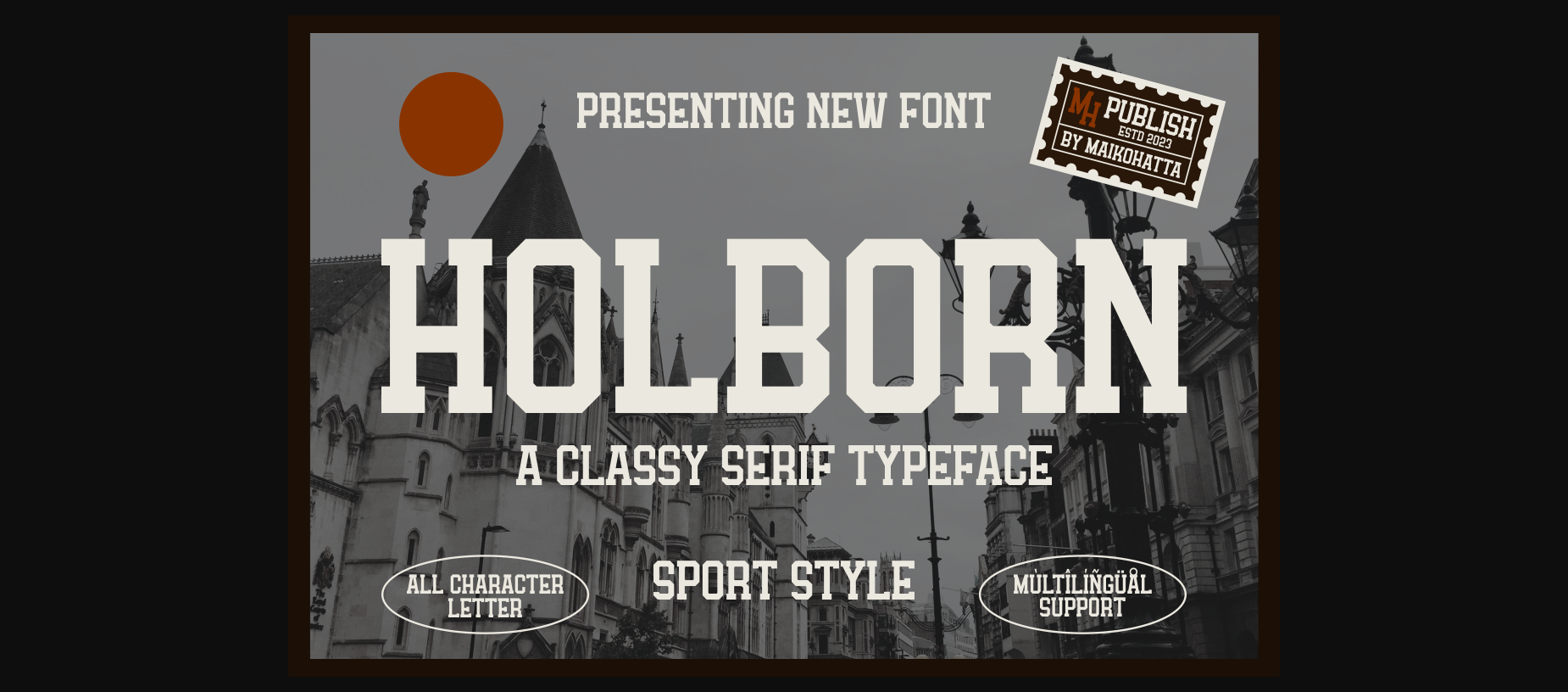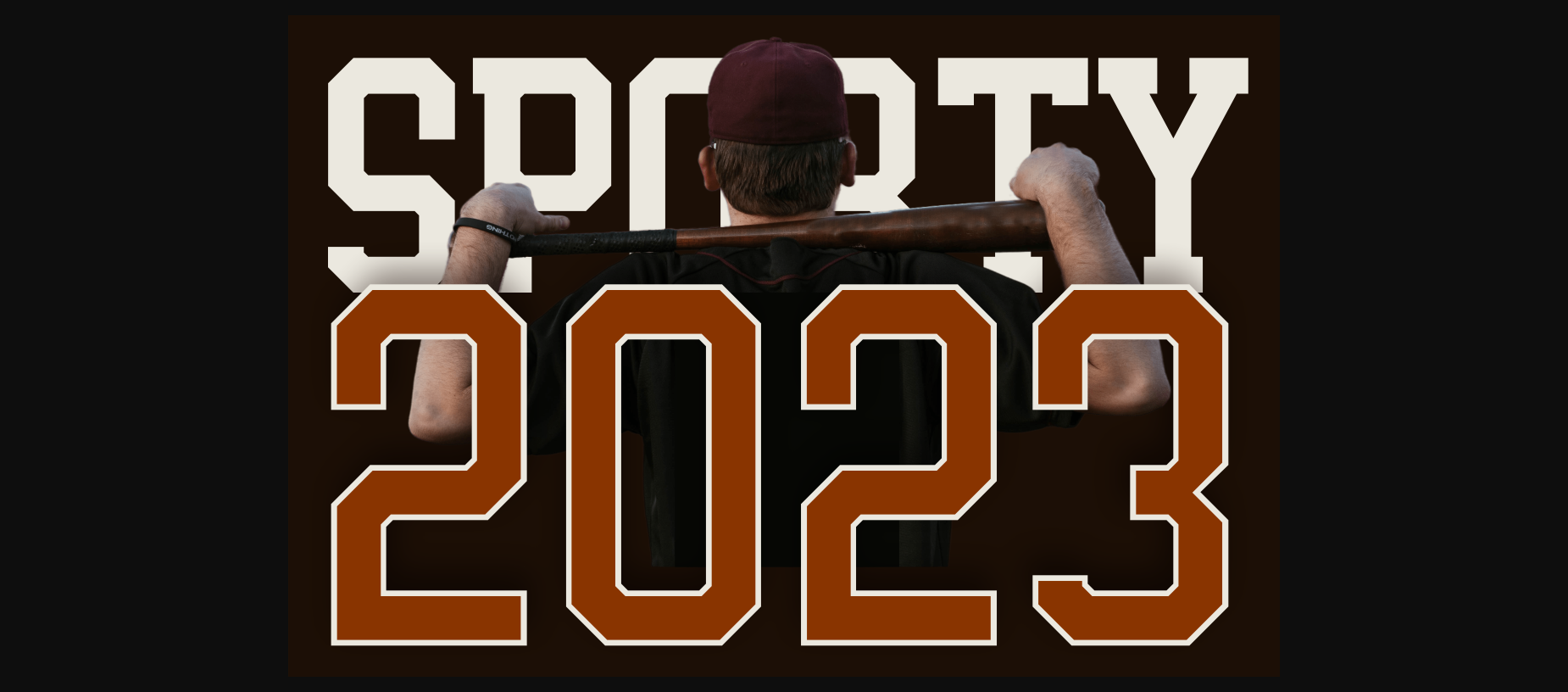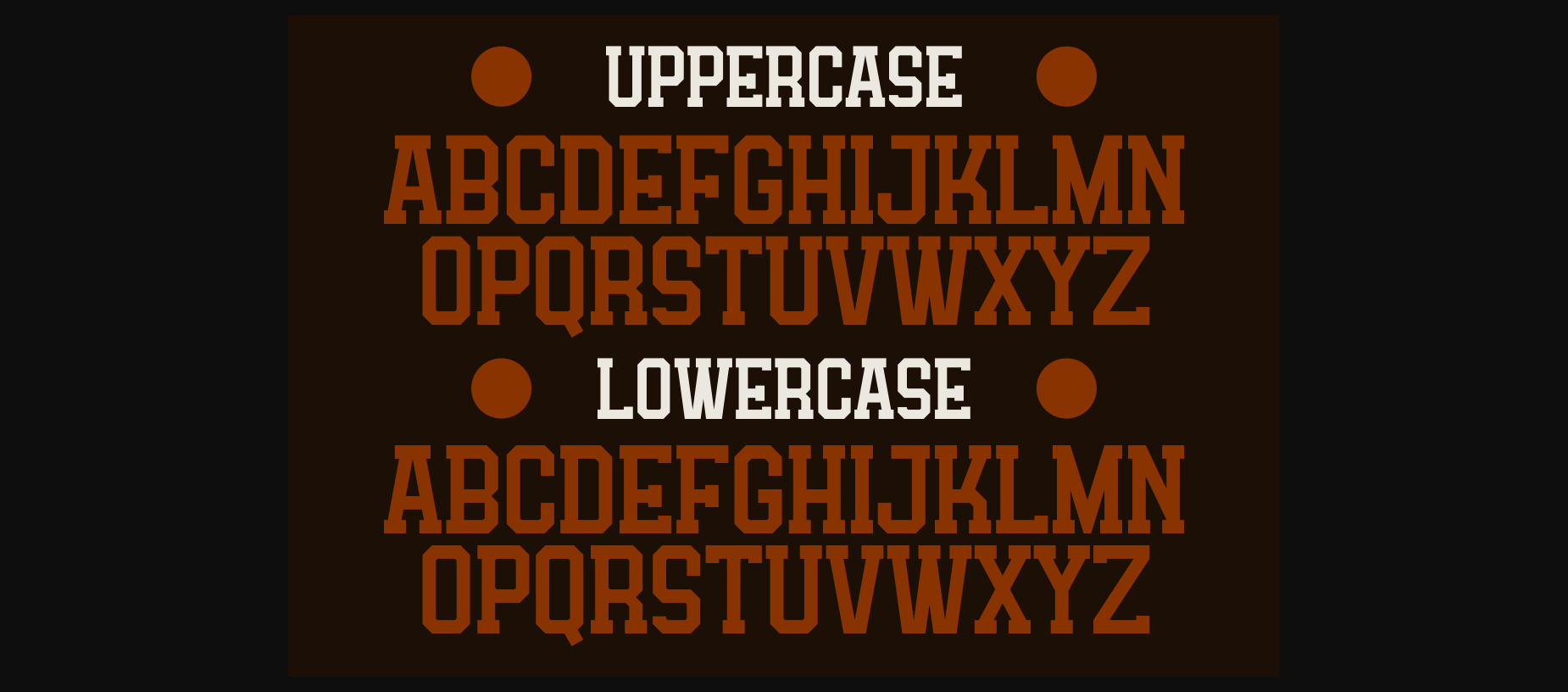
About Holborn Font
This font was designed to reflect the dynamic spirit, energy and toughness often associated with physical activity and sports. Holborn can be used in brand identities of sports teams, sports companies, and major sporting events.